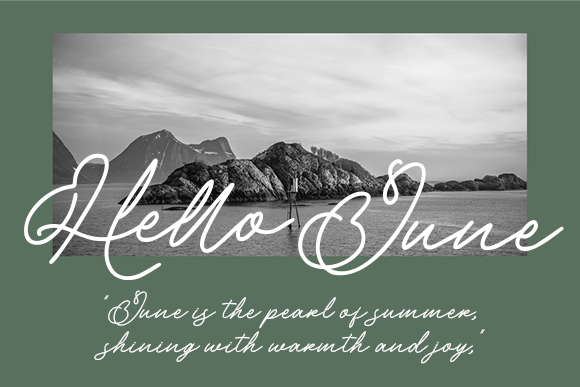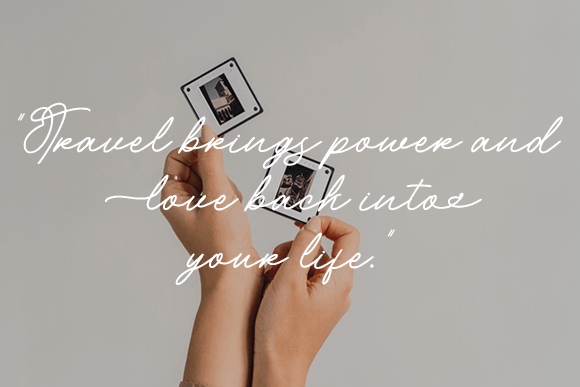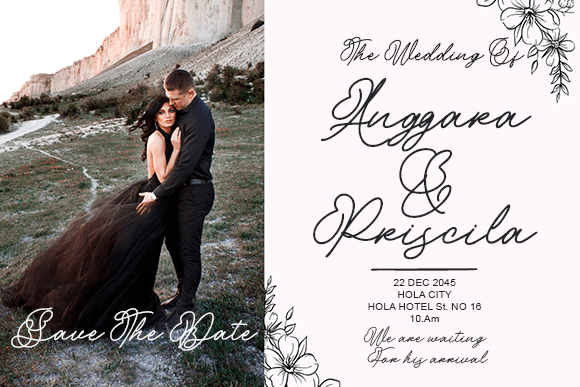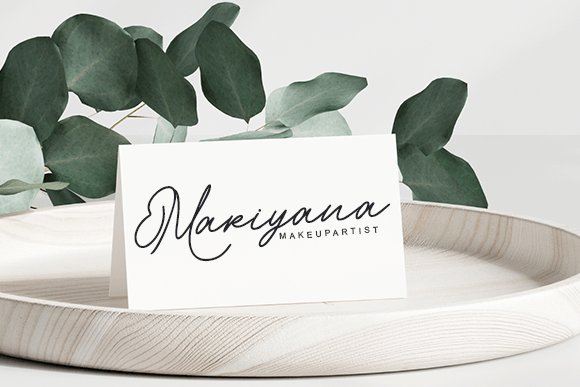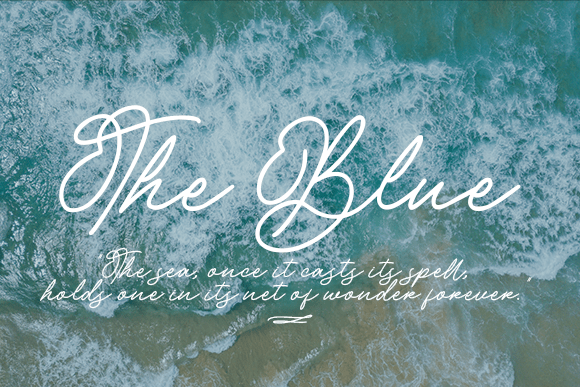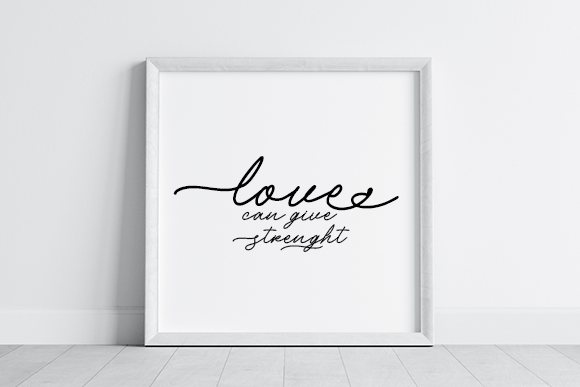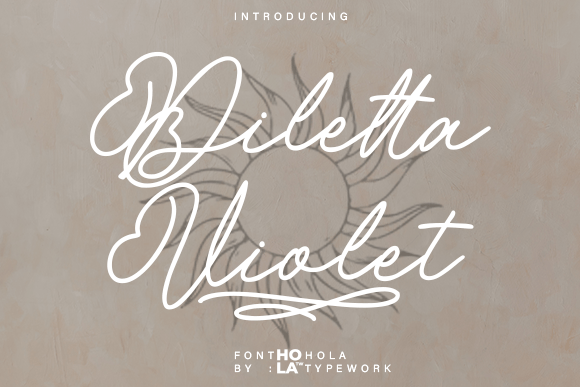
Discover the Elegance of Diletta Violet Font: Elevate Your Designs with Simplicity and Style
Welcome to the world of Diletta Violet, a striking mono line script font that is redefining the way we approach typography in design. Characterized by its delicate flourishes, this beautiful font is designed with simplicity in mind, making it incredibly easy to use for a wide range of design projects. Whether you’re creating captivating advertisements, enhancing your brand’s digital persona, sending out elegant wedding invitations, or expressing yourself through personalized cards, Diletta Violet font is the perfect choice to imbue your work with elegance and style.
The Simplicity and Versatility of Diletta Violet
One of the standout features of the Diletta Violet font is its simplicity. In an era where design complexity can often overshadow the message, this mono line script font offers a refreshing clarity. Its clean lines and minimalistic approach ensure that your message is conveyed with precision and grace. Yet, it’s not just about simplicity; Diletta Violet also boasts a remarkable versatility that makes it suitable for various design applications.
Applications of Diletta Violet Font
- Advertising and Marketing: In the competitive world of advertising, standing out is crucial. Diletta Violet font can add a touch of sophistication to your ad campaigns, making them more engaging and memorable.
- Branding: For businesses looking to elevate their brand identity, this font offers a stylish and modern approach. Its unique yet simple design can help in creating a distinctive brand voice.
- Wedding Invitations and Stationery: The elegance of Diletta Violet shines through in wedding invitations, cards, and other stationery. It adds a personal touch and a dash of luxury to your special occasions.
- Digital Content: In the digital realm, content creators can use Diletta Violet to make their blogs, social media posts, and newsletters more visually appealing and engaging.
The Aesthetic Appeal of Diletta Violet
Diletta Violet’s aesthetic appeal lies in its delicate flourishes and mono line construction. This combination gives the font a unique character that is both modern and timeless. The flourishes add a decorative touch, making the font perfect for designs that require a bit of elegance and flair. Meanwhile, the mono line aspect ensures that the text remains clear and readable, even in smaller sizes.
Tips for Using Diletta Violet Effectively
To make the most out of Diletta Violet font, consider the following tips:
- Pair it with Contrasting Fonts: For maximum impact, pair Diletta Violet with a contrasting font. A bold, sans-serif font can create a beautiful visual hierarchy, highlighting key information while keeping the overall design cohesive.
- Experiment with Colors: While black and dark tones complement Diletta Violet beautifully, don’t be afraid to experiment with colors. Pastels, soft blues, and even vibrant hues can bring a unique energy to your designs.
- Pay Attention to Spacing: Given its delicate nature, ensure that you leave adequate spacing between lines and words. This will prevent the design from feeling cluttered and will let Diletta Violet’s beauty shine through.
Diletta Violet font is more than just a typeface; it’s a design tool that can elevate your projects with its elegance and simplicity. Whether you’re a professional designer or a DIY enthusiast, this font offers the versatility and aesthetic appeal needed to create stunning designs. With Diletta Violet, you can transform your ideas into visually captivating realities that leave a lasting impression.
So, dive into the world of Diletta Violet and discover how this beautiful mono line script font can become an integral part of your design journey. Its ease of use, combined with its stylish and elegant appearance, makes it an excellent addition to your typography arsenal.